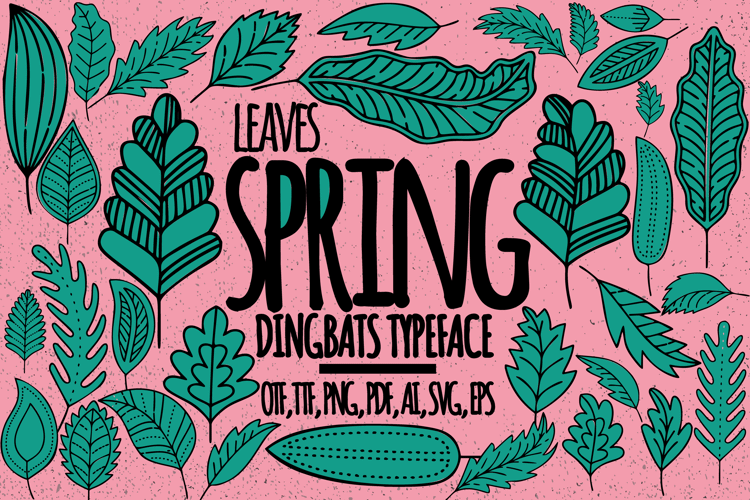
Spring leaves Font
🎨 Font Name: Spring Leaves by Minimalist Art Studio
🎨 Font Description: Spring Leaves Dingbats is a leafy decorative set full of botanical charm, perfect for seasonal graphics, packaging, and nature-inspired design.